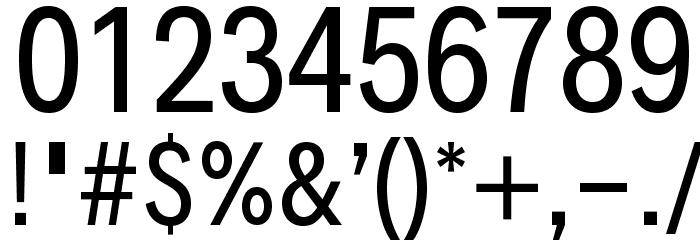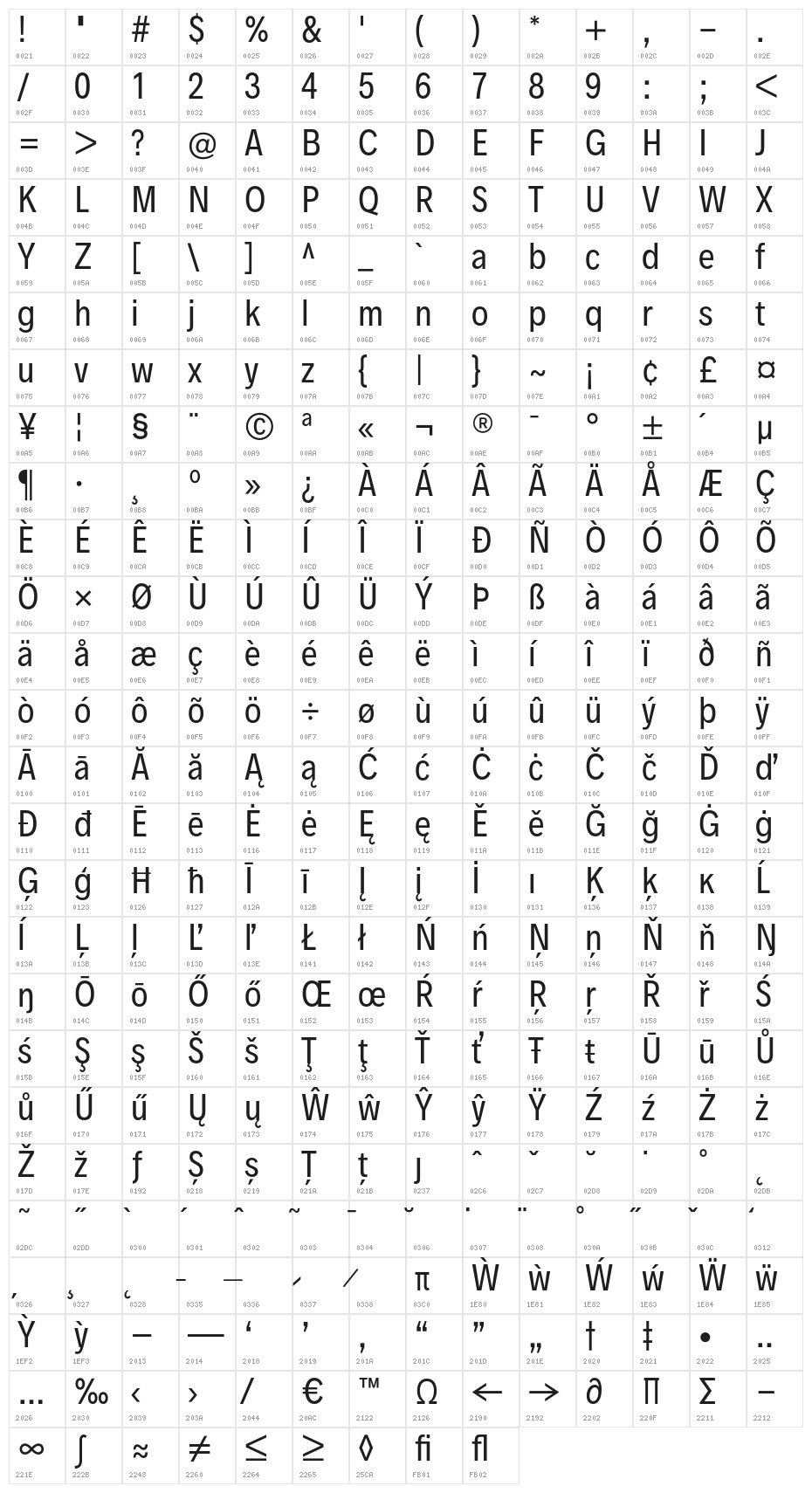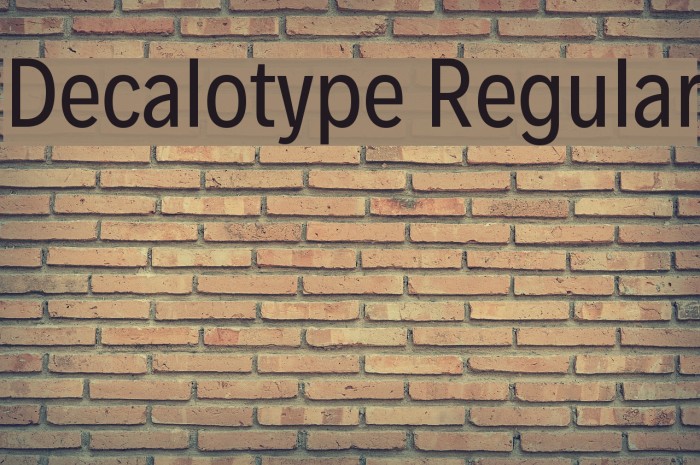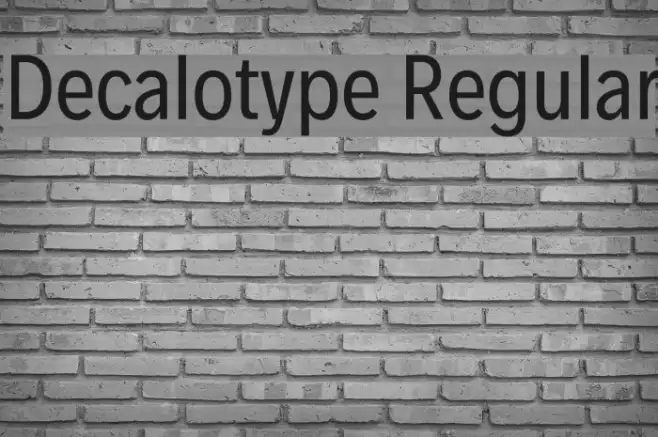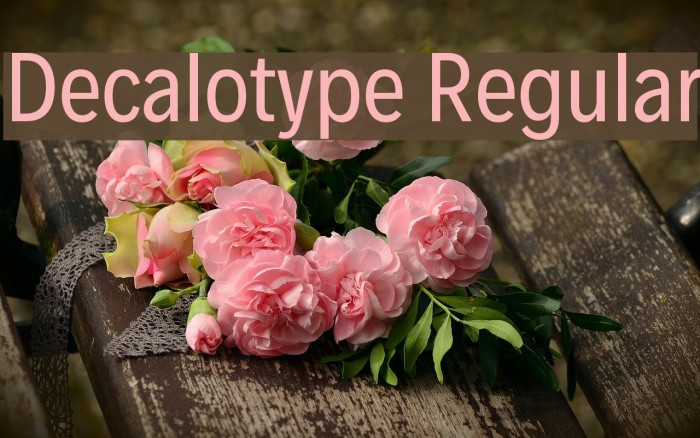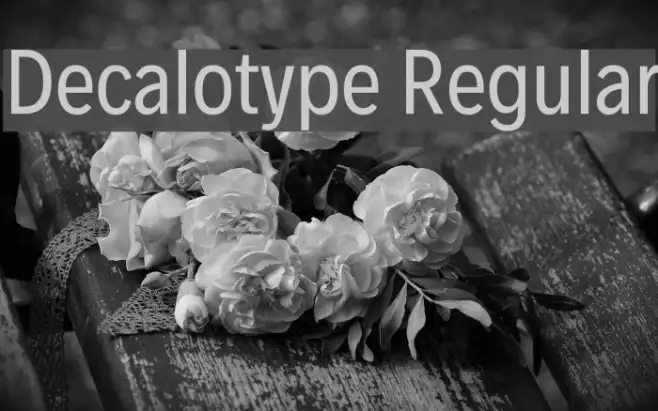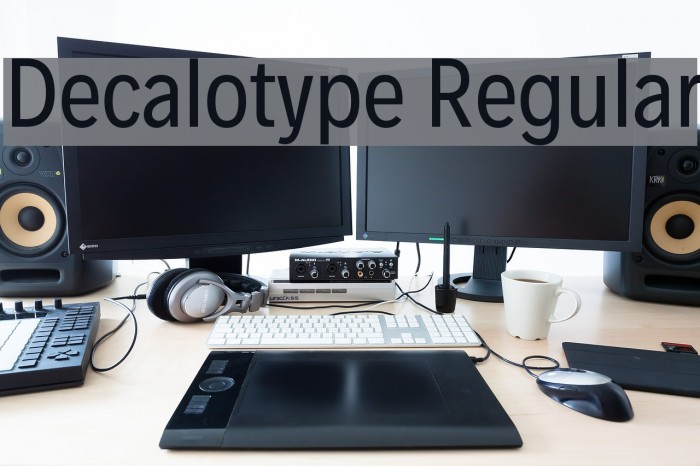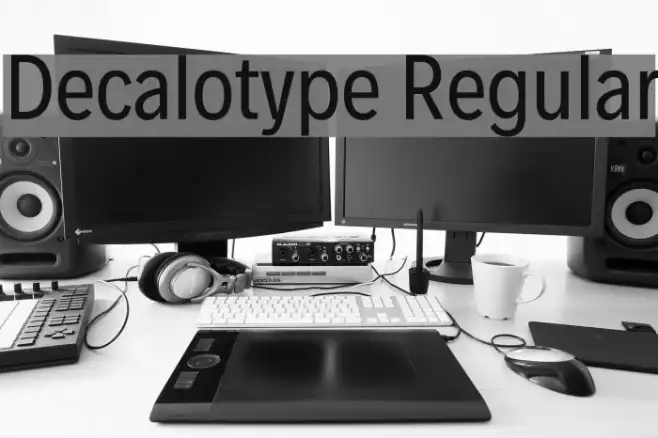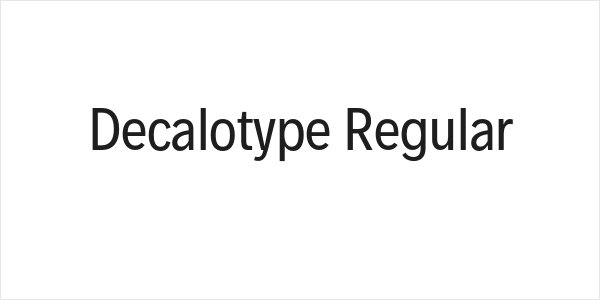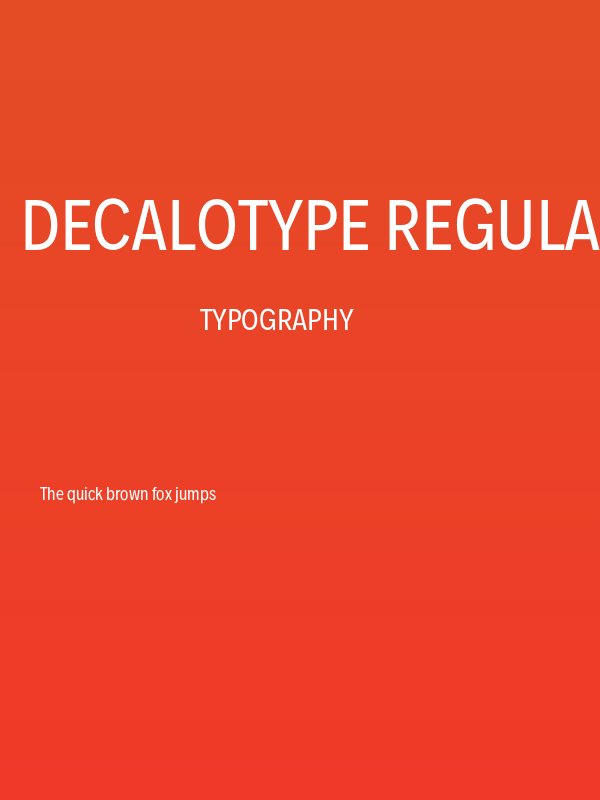
Decalotype Regular Font
Decalotype Regular Description
This font presents a clean and modern sans-serif style, characterized by its simplicity and readability. The characters are uniform in width, contributing to a balanced and harmonious appearance. The uppercase and lowercase letters are well-proportioned, with a consistent stroke width that enhances legibility. The numerals are straightforward and align well with the overall design, making them suitable for both digital and print media. Special characters are clearly defined, maintaining the font's cohesive look. This font is versatile, suitable for a wide range of applications from body text to headlines.
| Proposed Projects | Ideal for web design, corporate branding, editorial layouts, and user interfaces. |